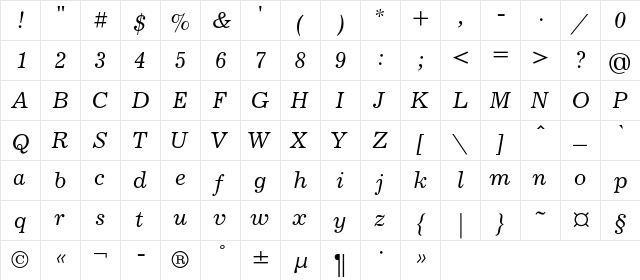
JournalC Italic
Design Context for JournalC Typeface
JournalC offers clean, dependable letterforms without strong stylistic allegiance, making it a practical choice for designers who need flexibility. The dynamic lean of this cut emphasises speed and emphasis in any layout.
Pro Tip: Try JournalC for annotation and caption copy alongside an upright companion — the contrast in angle creates a dynamic but ordered typographic system.